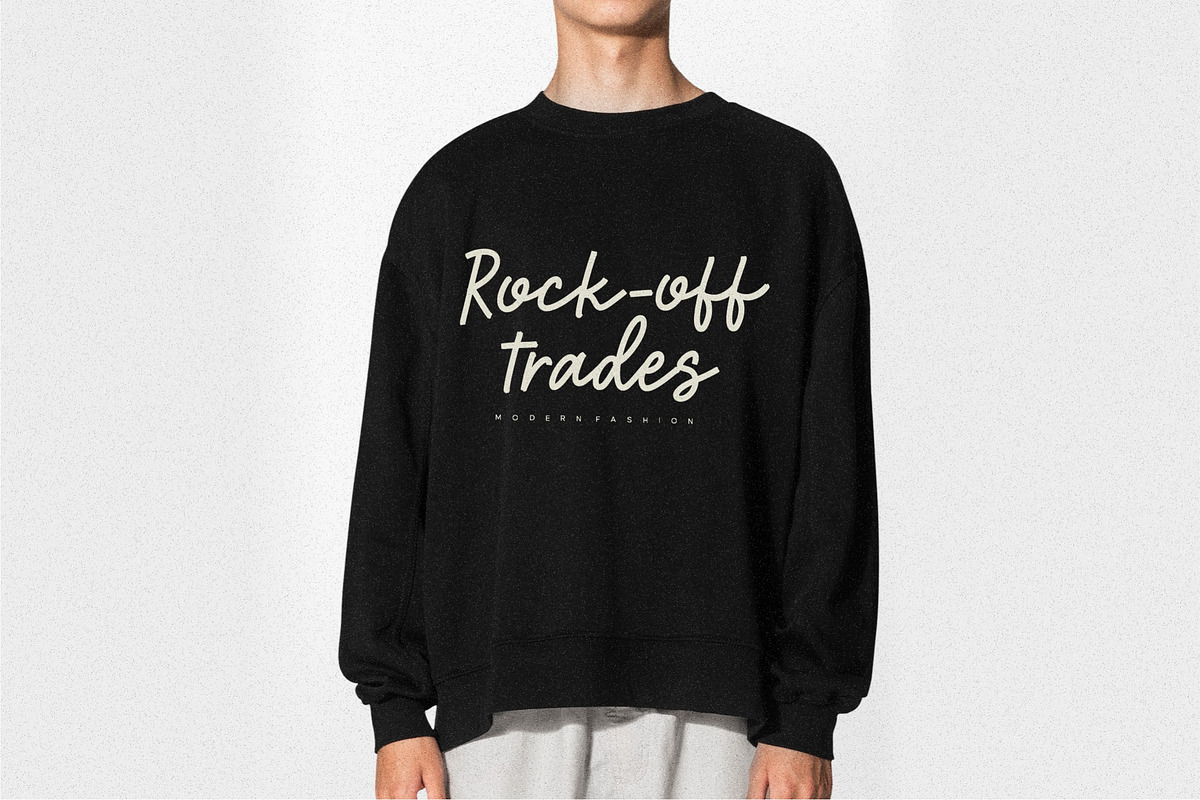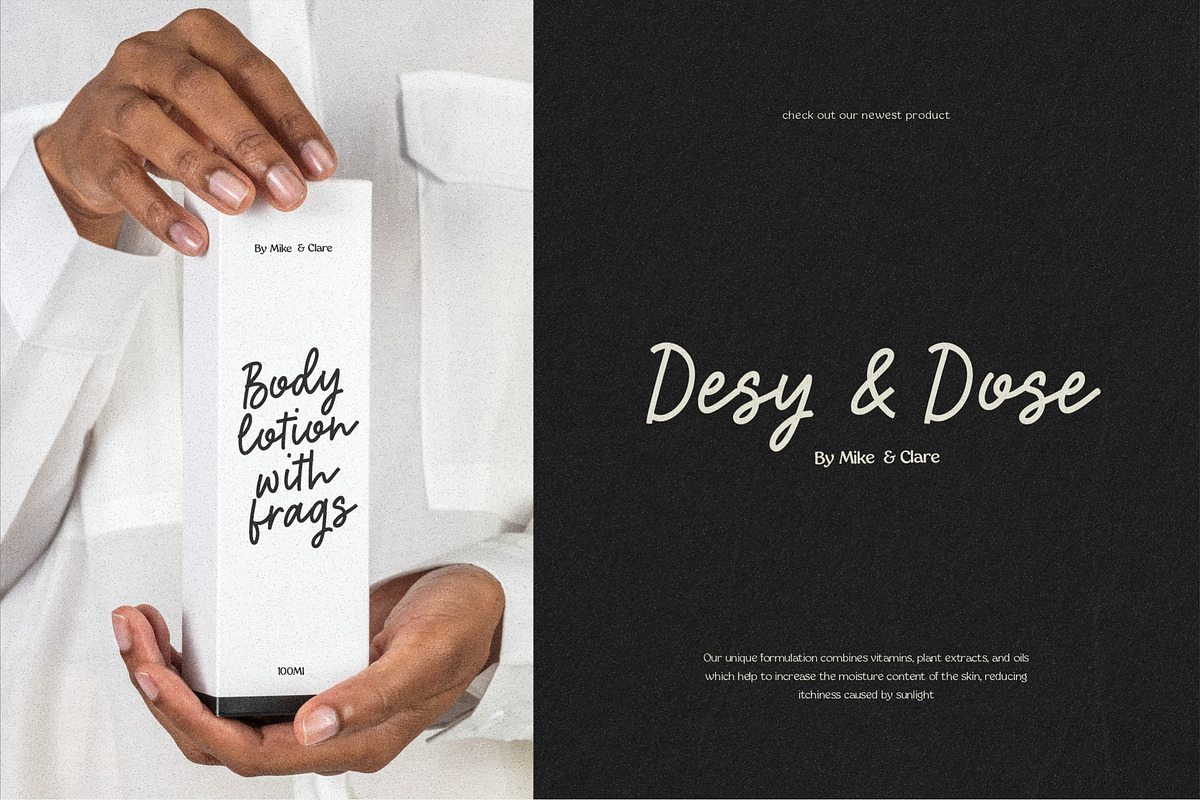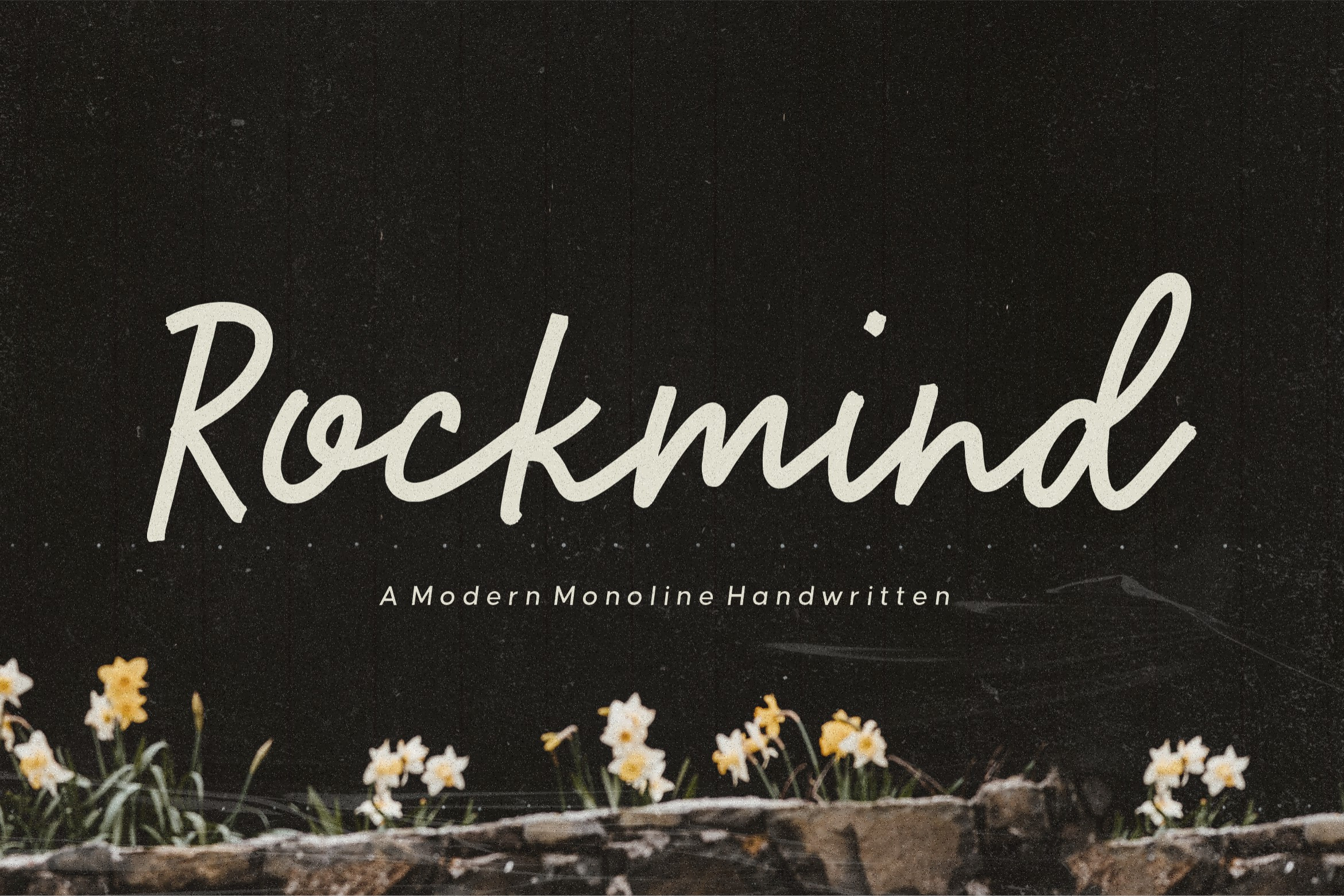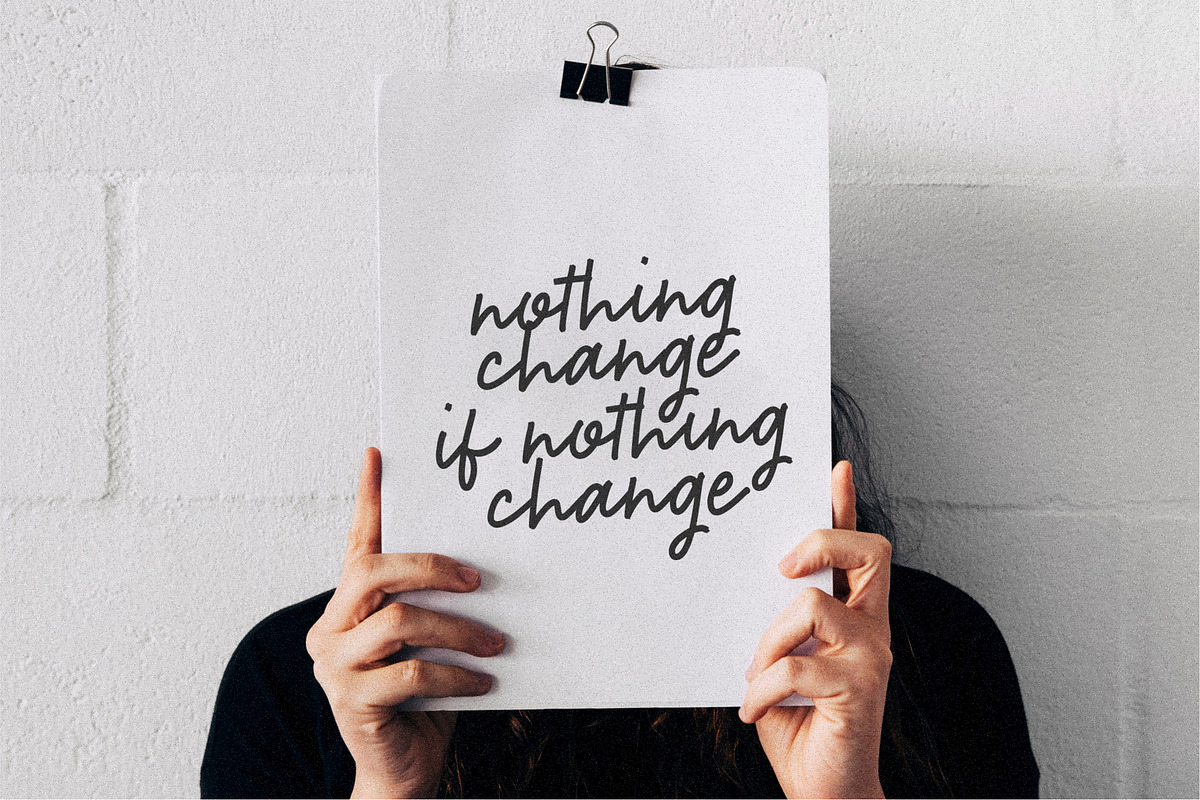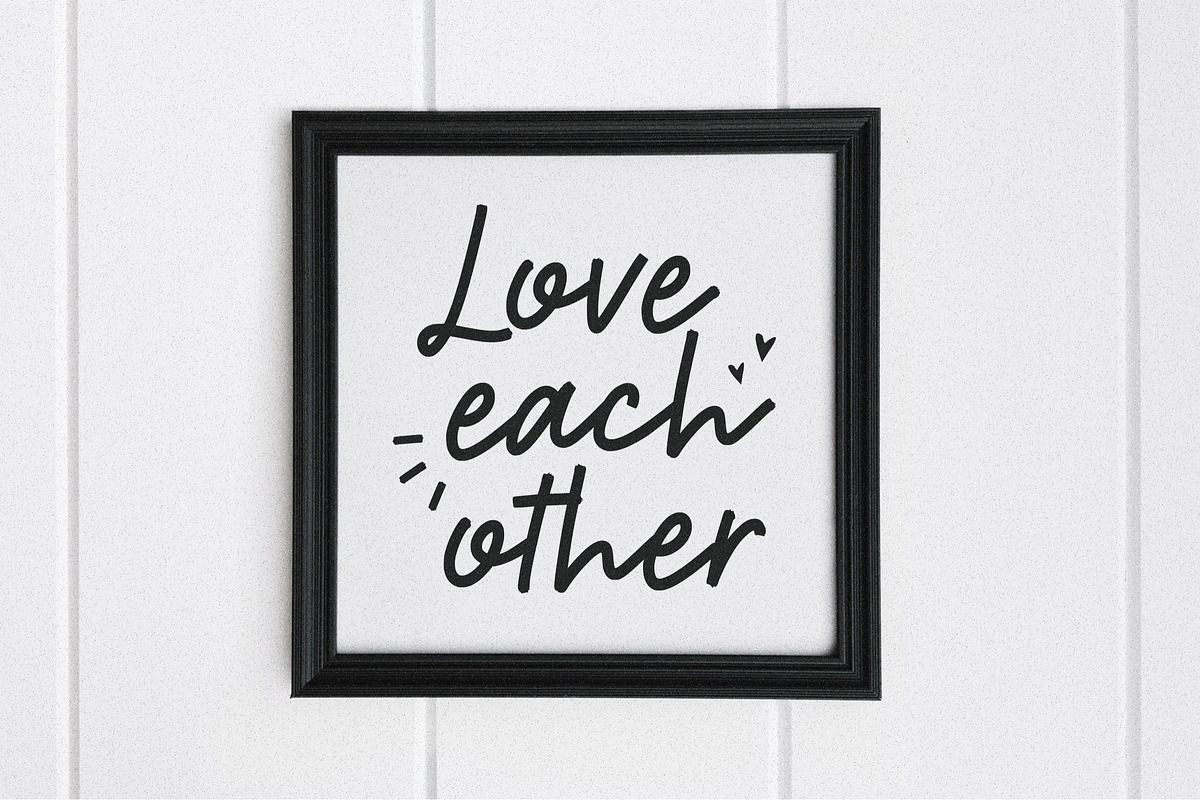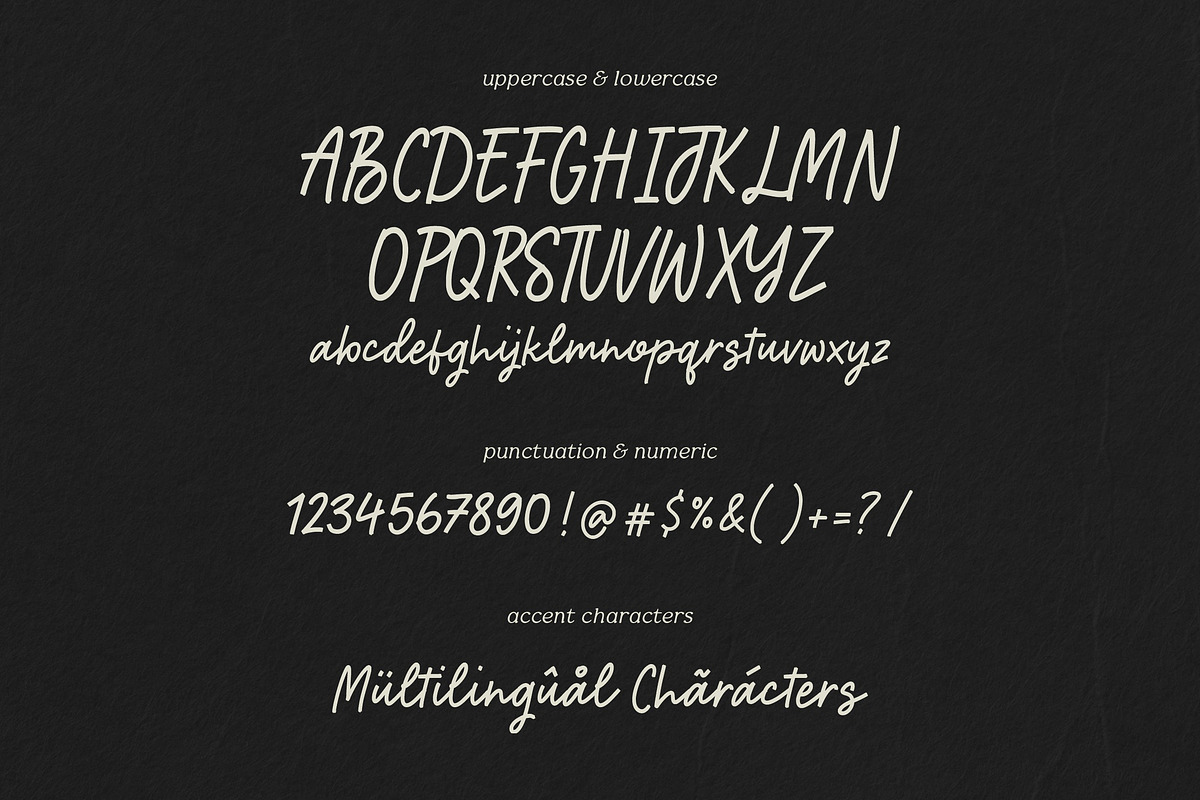
Rockmind - Modern Monoline Font
Introducing by Letterative Studio : Rockmind Font
Rockmind is a Modern Monoline Handwritten Font
Rockmind is a modern, monoline handwritten script font. Whether you’re using it for crafts, digital design, presentations, or making greeting cards, this font has the potential to become your favorite go-to font, no matter the occasion!